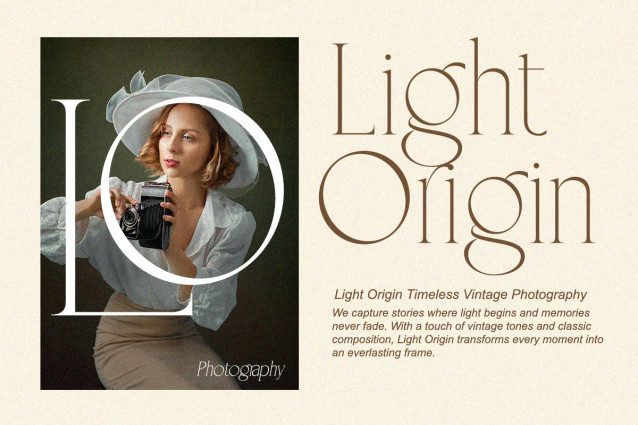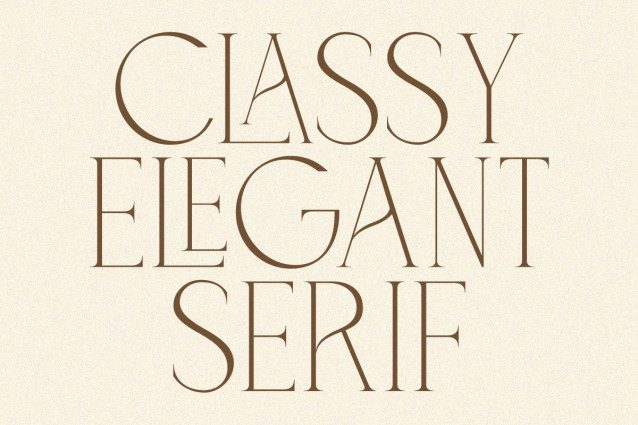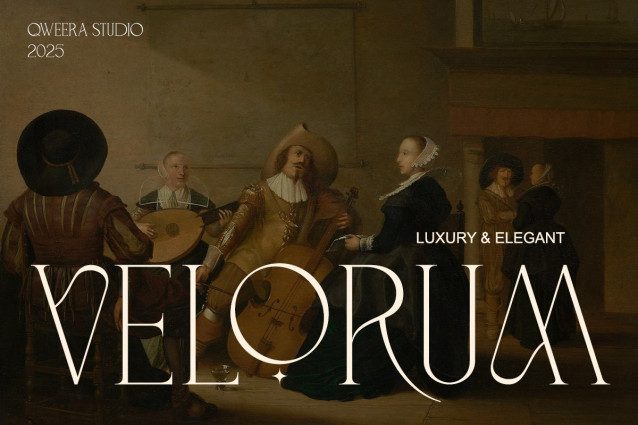
Velorum Font
Velorum Font is a luxurious serif typeface rooted in artistic legacy and refined modernism.Its elongated letterforms and graceful curves deliver a dramatic statement without sacrificing legibility. Velorum is designed for creatives who demand both beauty and class in their typography. Every glyph is hand-adjusted for perfection, offering stylistic alternates that embody elegance and timeless sophistication.
Perfect for high-end branding, editorial spreads, fashion campaigns, and fine art galleries. With Velorum, your design will whisper power and prestige.